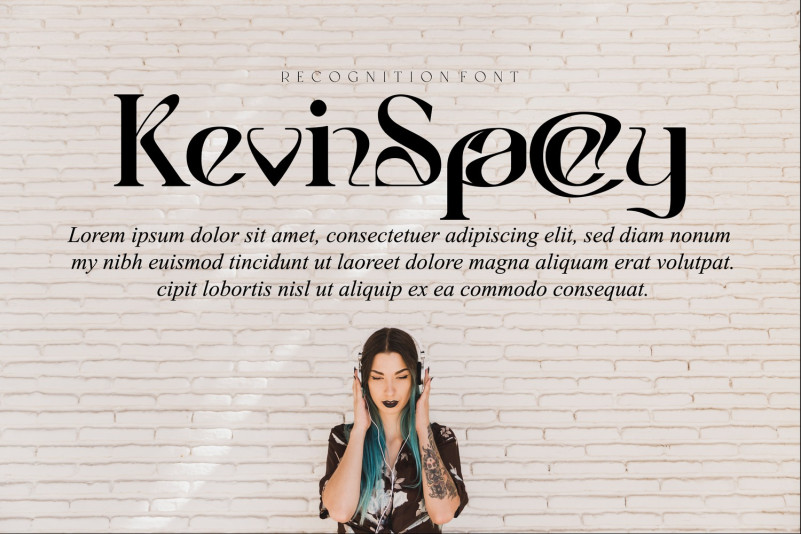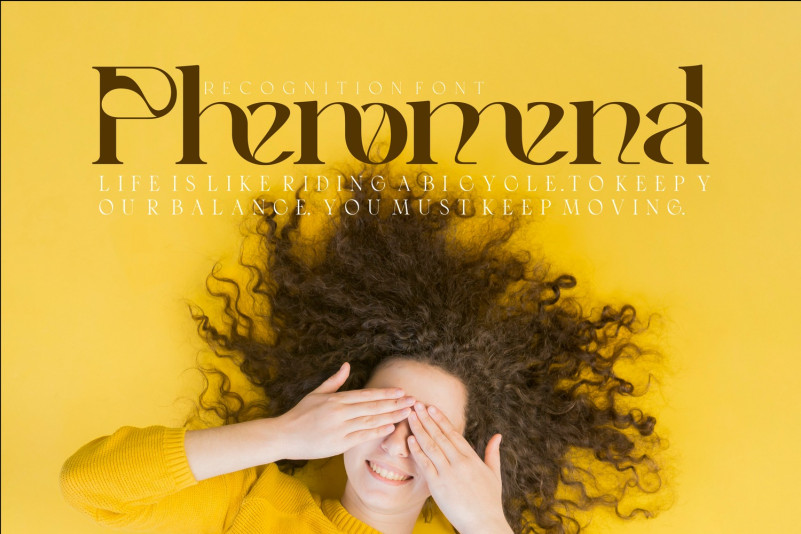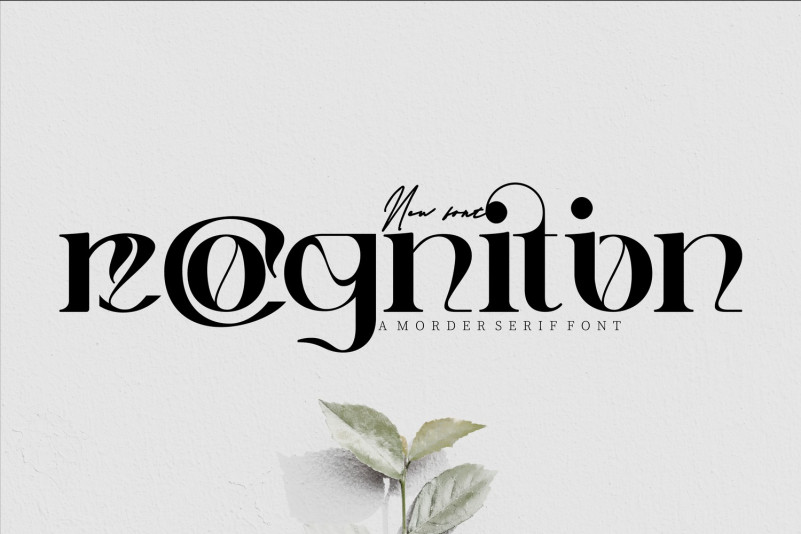
Recognition Font
Recognition font is a modern elegant font features clean and minimalist design with thin strokes and unique shapes, incorporating geometric elements for symmetry and balance. This font is ideal for modern branding and advertising, exuding refinement and sophistication. This font was built with OpenType features and includes ligatures,alternates, numbers, punctuation, and it also supports other languages.
To make it look more unique, here we prepared some ligatures:
ac ad al an ar as at au av be ca ce ch co ct de di ea ec ed ee em en ep er es et fe fo fr ge ha he hi ho ic ie il in io ir is it ju ke la le ll ma me mi nc nd ne ng no ns nt oc of om on oo or ot ou ow pa ra rd re ri ro rs rt se sh si so ss st ta te th ti to tr tt um un ur ve wi wo